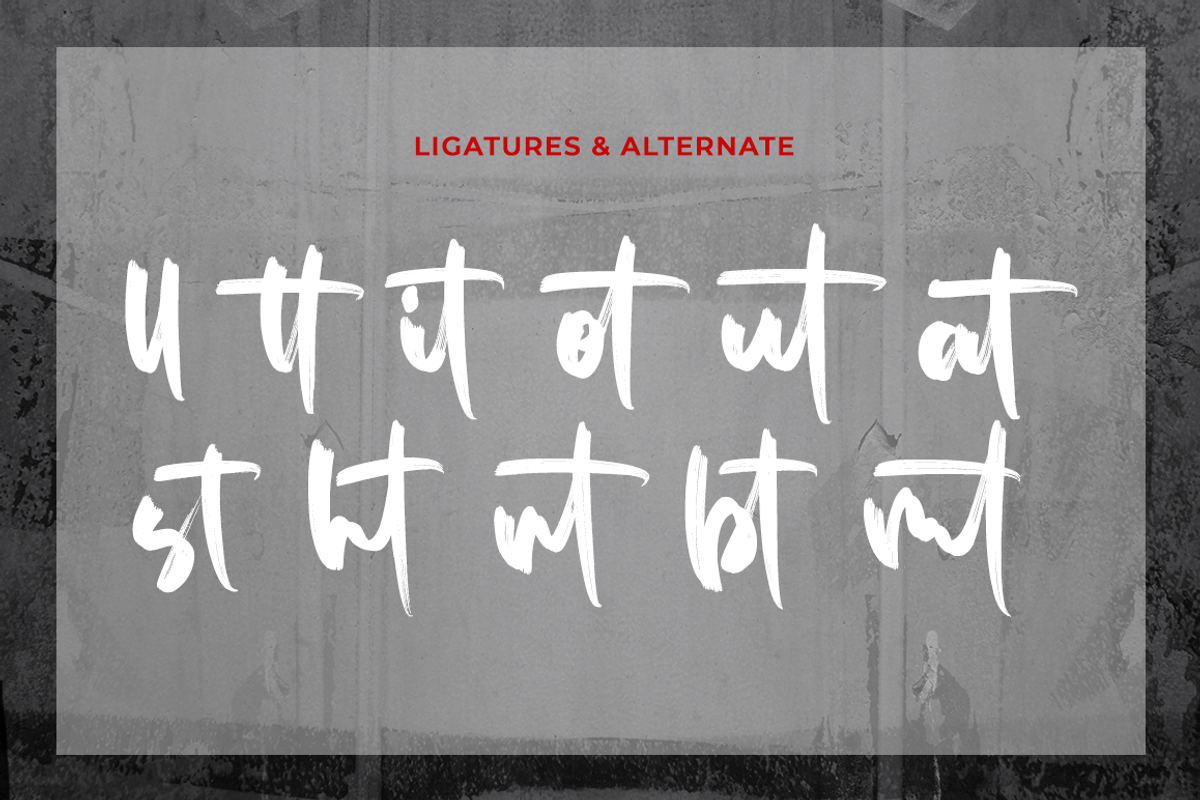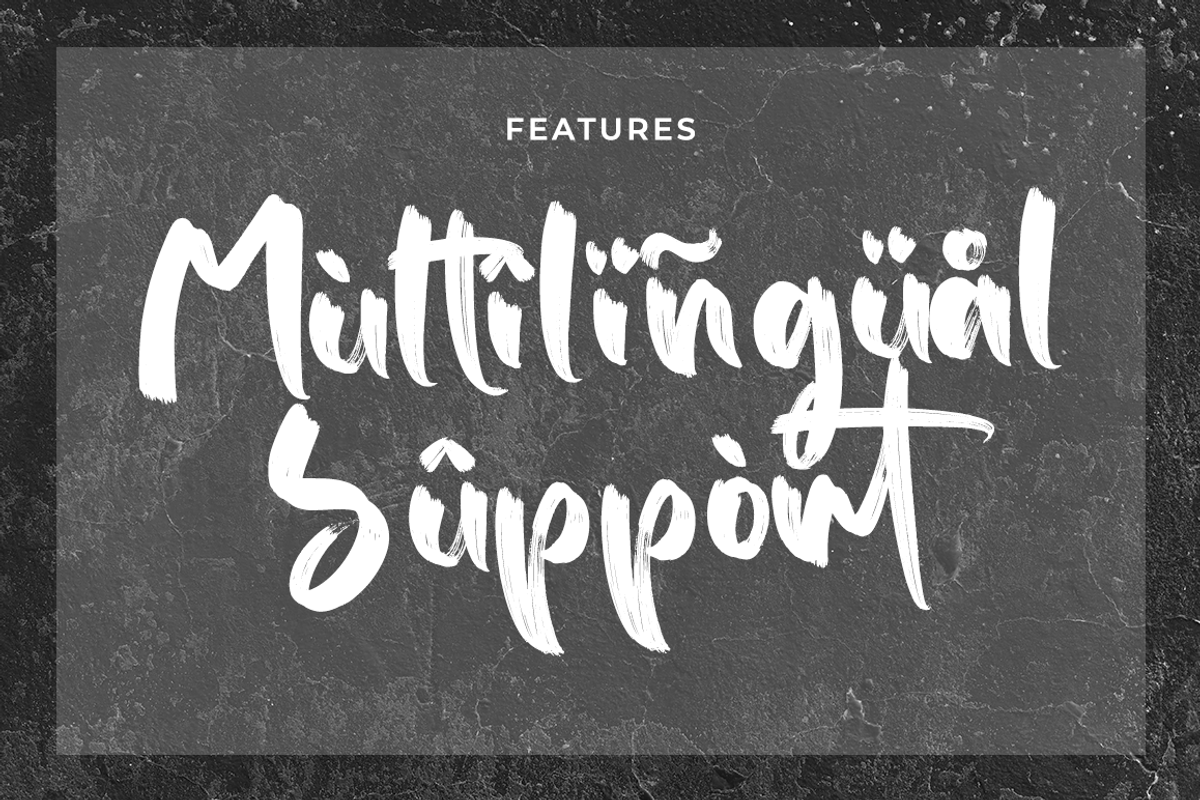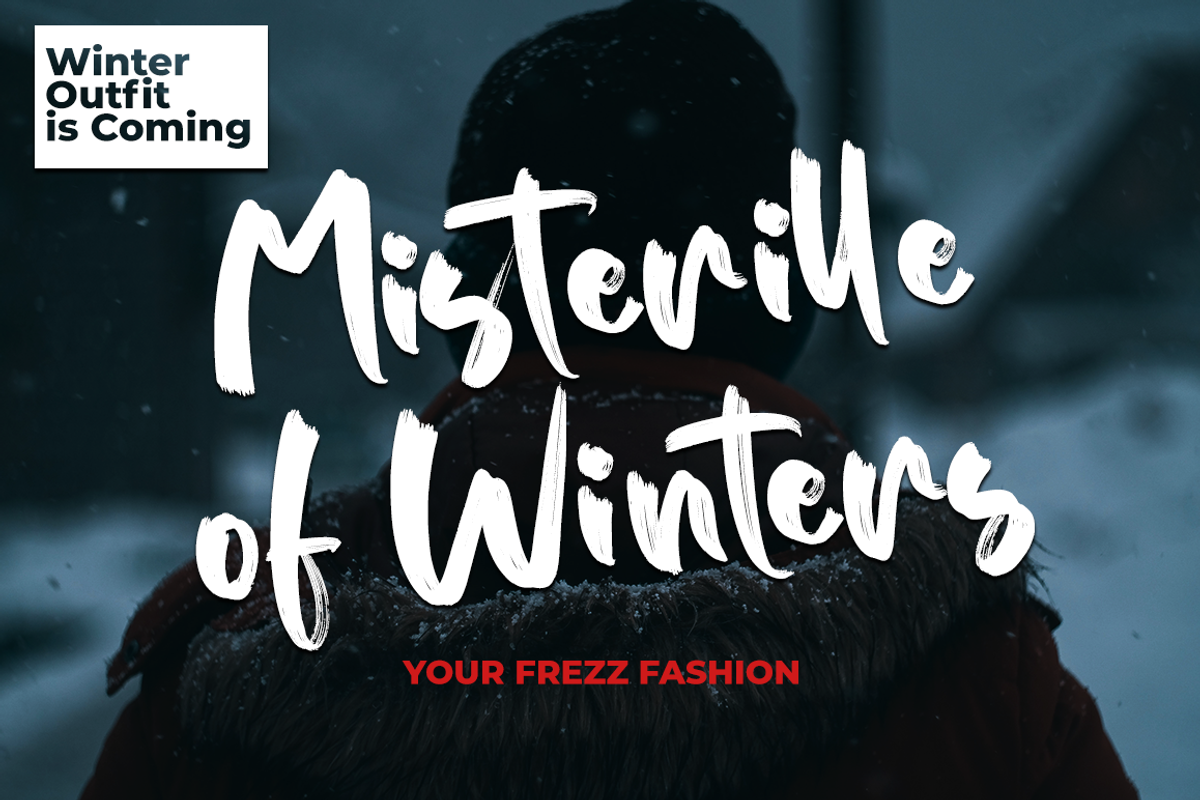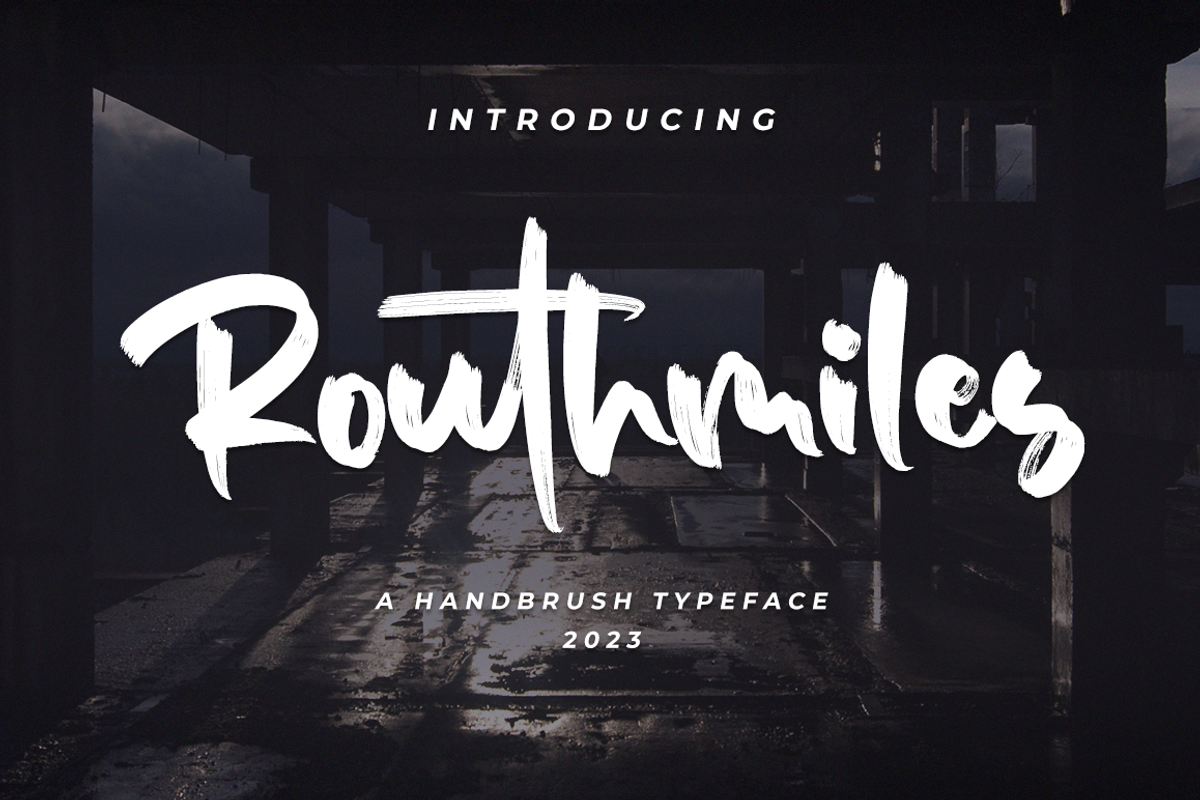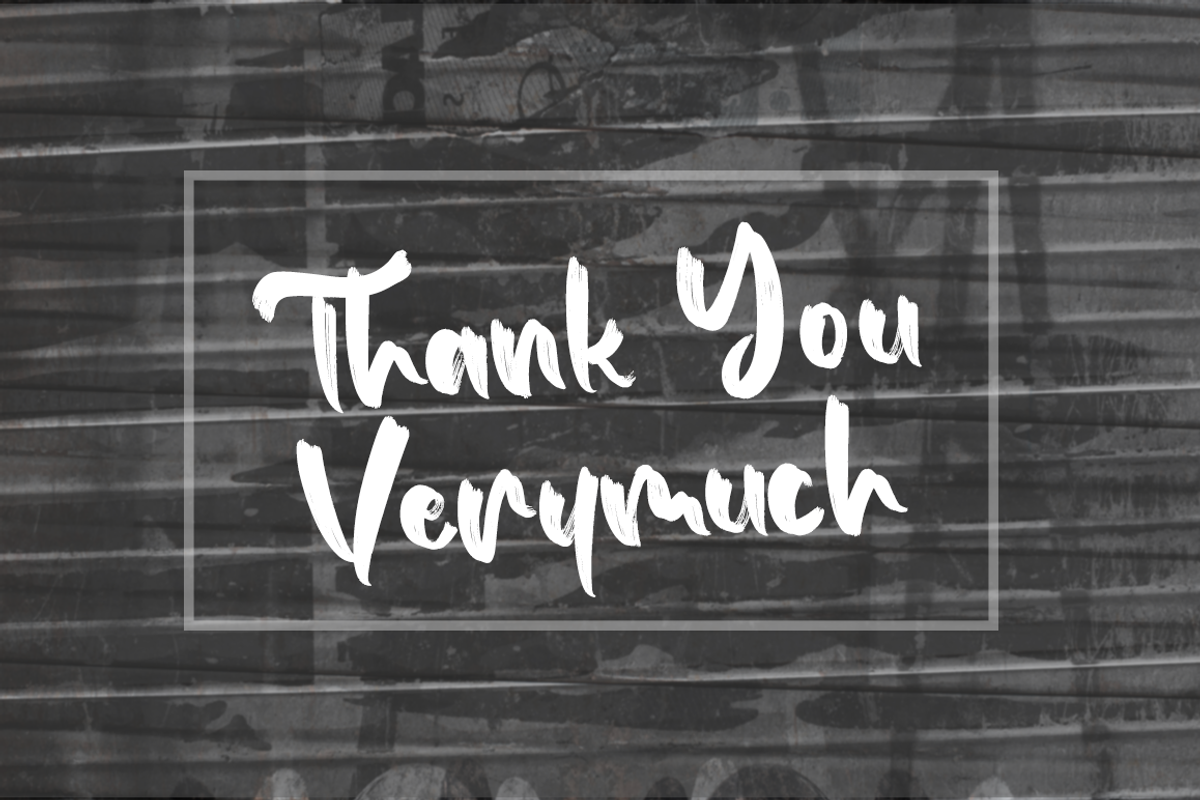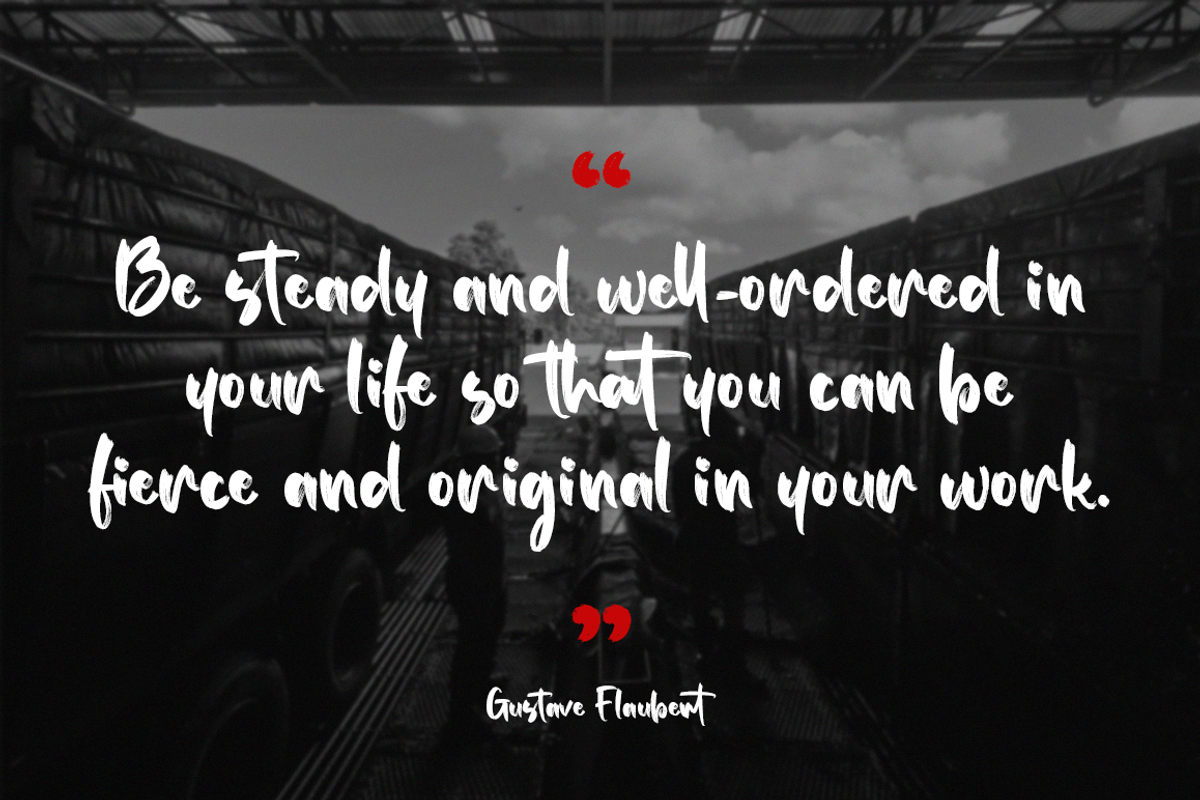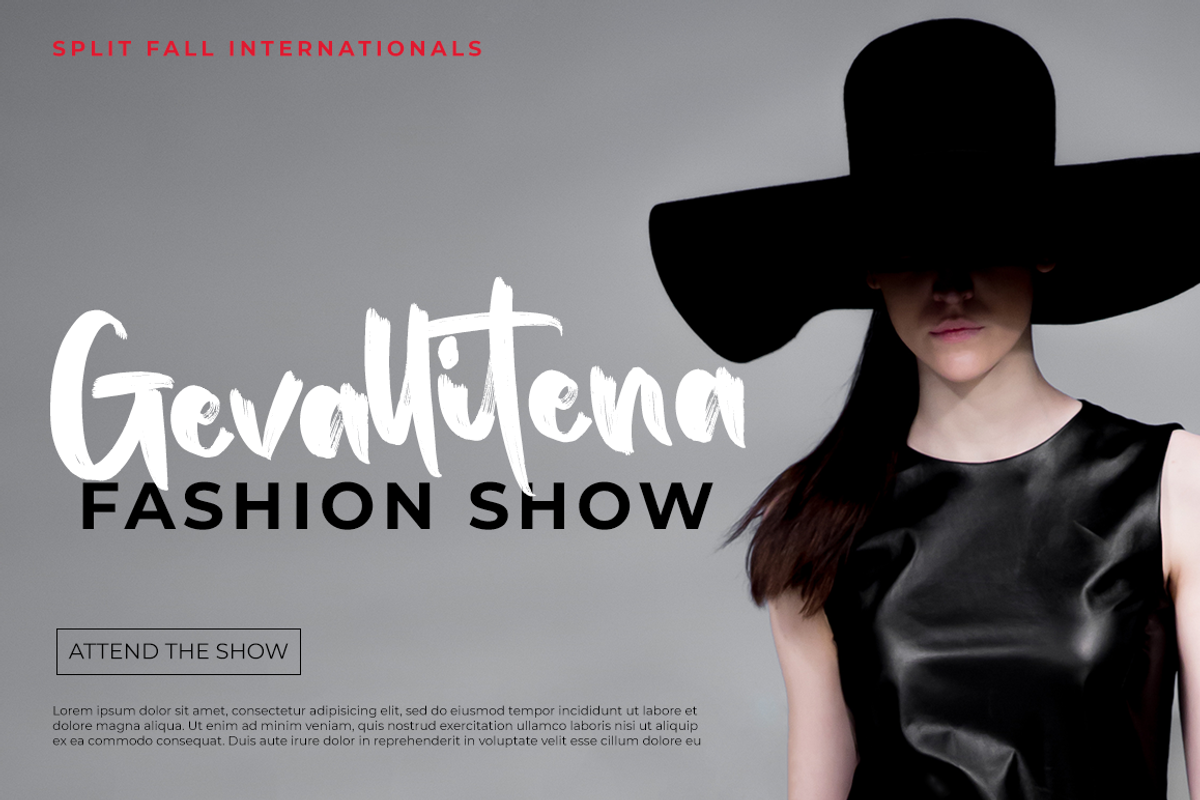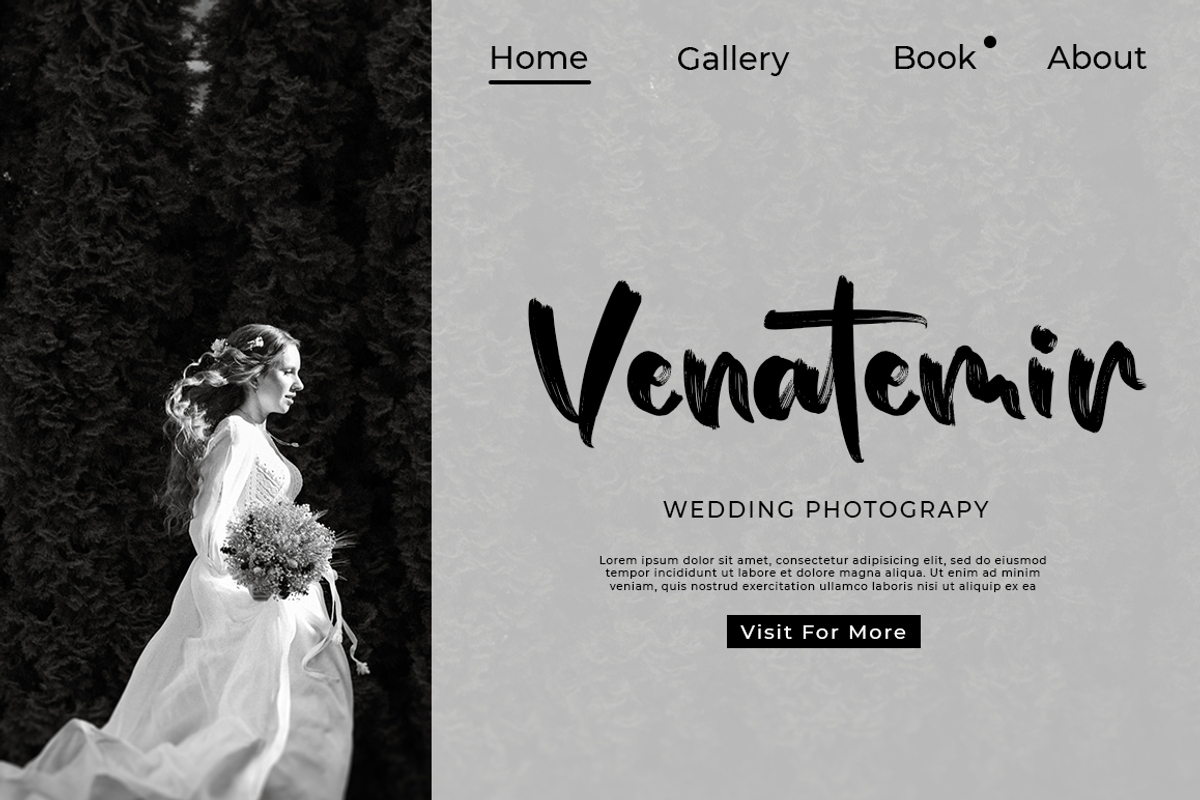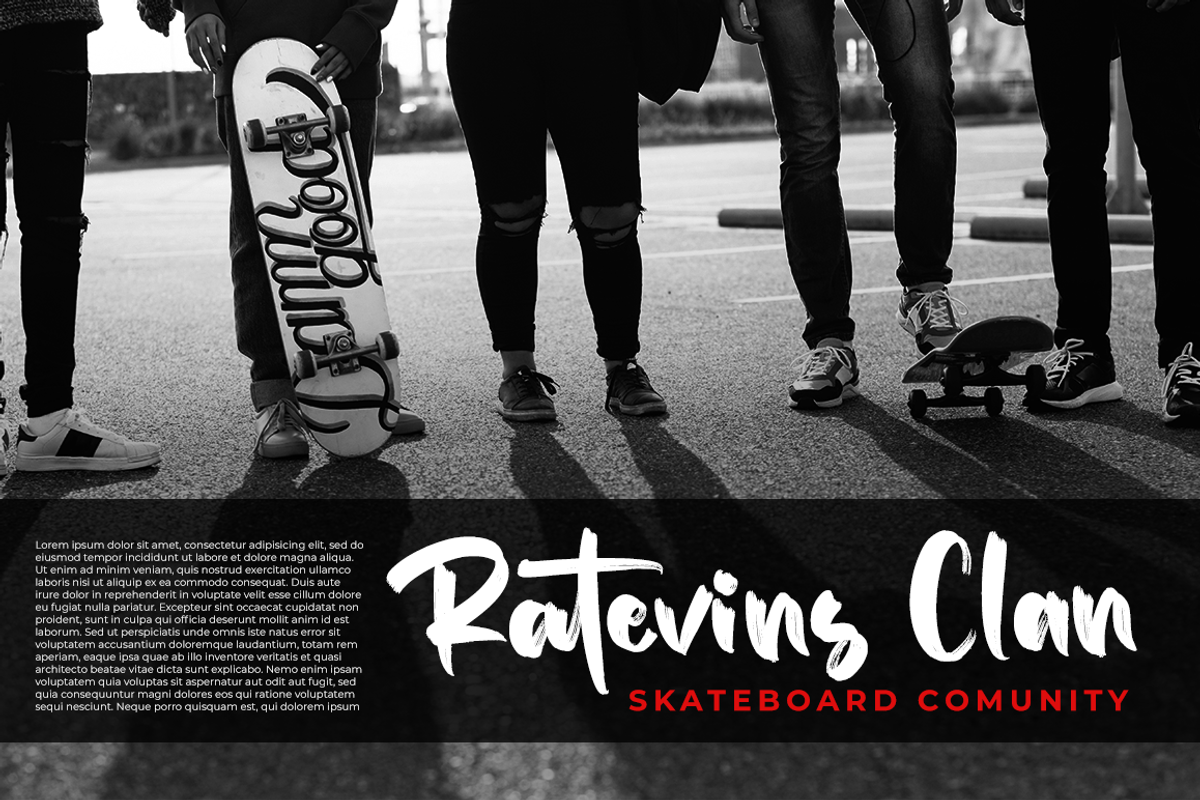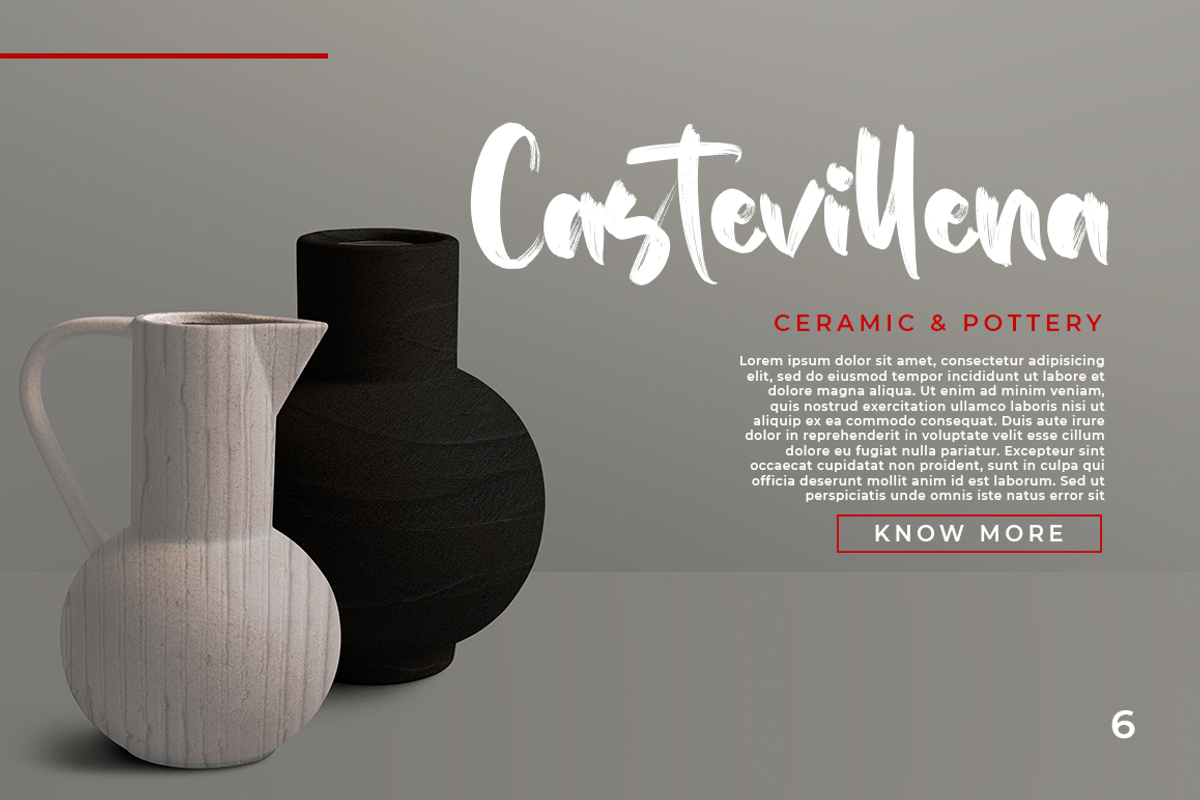
Routhmiles - Brush Font
Routhmiles is a natural handwritten brush font. It’s ideal for branding and decorating your projects, creating wedding invitations, book covers, marketing, and much more!